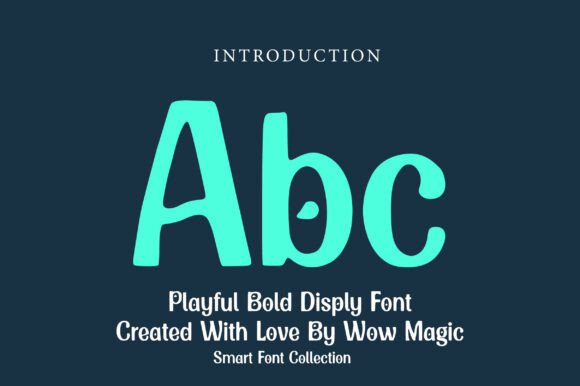
Introduction to Luxury Hybrid Font Font
Fonts play a crucial role in design, and the Luxury Hybrid Font font is a typeface that brings both character and versatility to any project. Whether you’re working on a branding project, a website, or a print design, the Luxury Hybrid Font font offers a unique style that can elevate your work.
Luxury Hybrid: A Playful Bold Display Font Elevate your creative projects with Luxury Hybrid, a bold display font that perfectly balances a clean, modern structure with a whimsical, hand-crafted soul.
It is particularly effective for posters, book covers, hero sections, boutiques, creative agencies, or lifestyle brands Make your quotes and announcements pop with a font that feels fresh and full of life.
Key Features of Luxury Hybrid Font Font
Why Choose Luxury Hybrid Font Font?
The Luxury Hybrid Font font is more than just a typeface – it’s a design tool that helps you communicate your message with style and clarity. Its unique character set and versatile design make it suitable for a wide range of applications, from elegant invitations to bold headlines.
With its carefully crafted letterforms and balanced proportions, the Luxury Hybrid Font font ensures readability and visual appeal across all mediums.
What makes Luxury Hybrid Font font special?
The Luxury Hybrid Font font stands out with its unique design, exceptional readability, and versatility across various design applications.